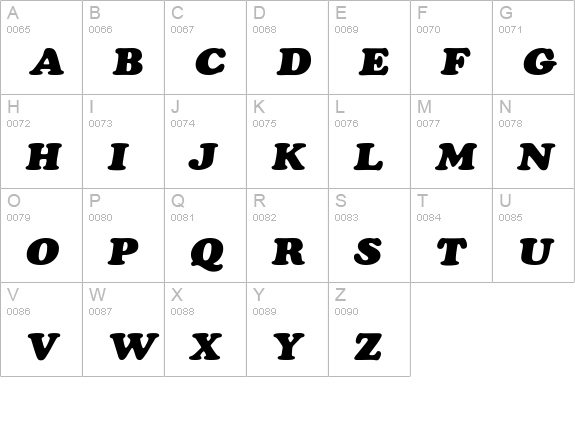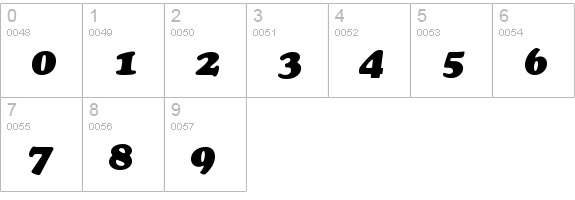
CooperExt-Heavy-Italic is a heavy, high-impact, italic variant in the CooperExt typeface family \xE2\x80\x94 well suited to high-impact headlines, posters, and display advertising.
CooperExt-Heavy-Italic is a bold and distinctive typeface that exudes elegance and sophistication. Its stylish slanted design adds a touch of drama to any text, making it perfect for creating eye-catching headlines or adding emphasis to your design projects. The sleek curves and sharp angles of CooperExt-Heavy-Italic make it a versatile choice for a wide range of applications, from branding and advertising to editorial design and more. And the best part? CooperExt-Heavy-Italic is available for free download at FontsMarket.com! This means you can easily add this striking font to your collection without any cost, allowing you to unleash your creativity without limitations. Don't miss out on the opportunity to enhance your designs with the bold and captivating CooperExt-Heavy-Italic font - download it today and make a statement with your typography!